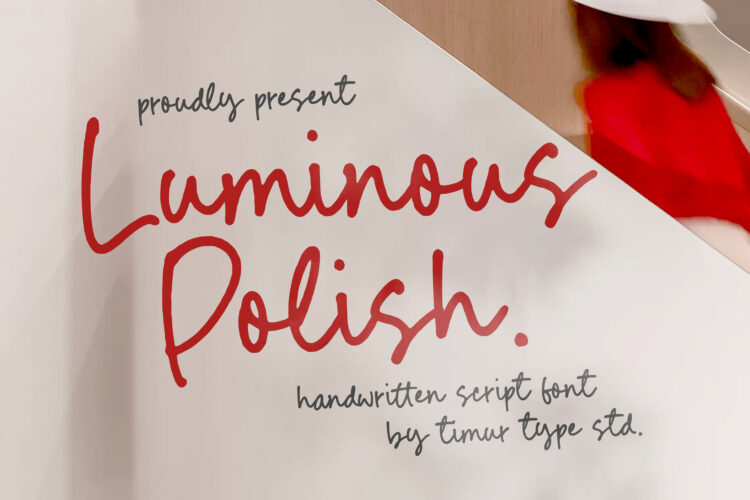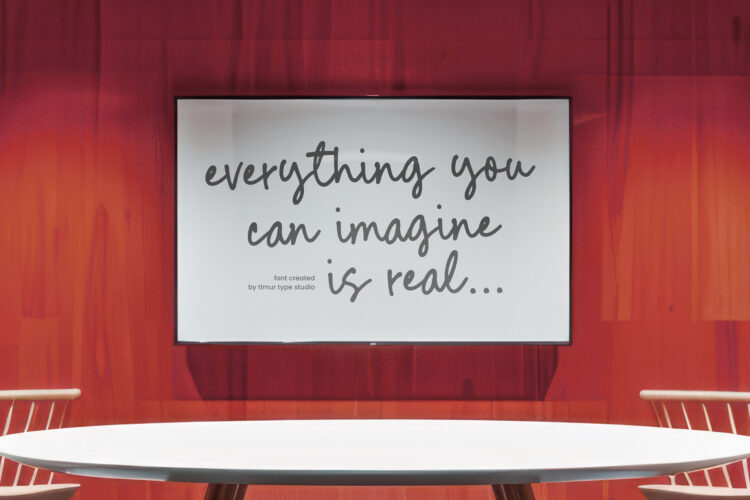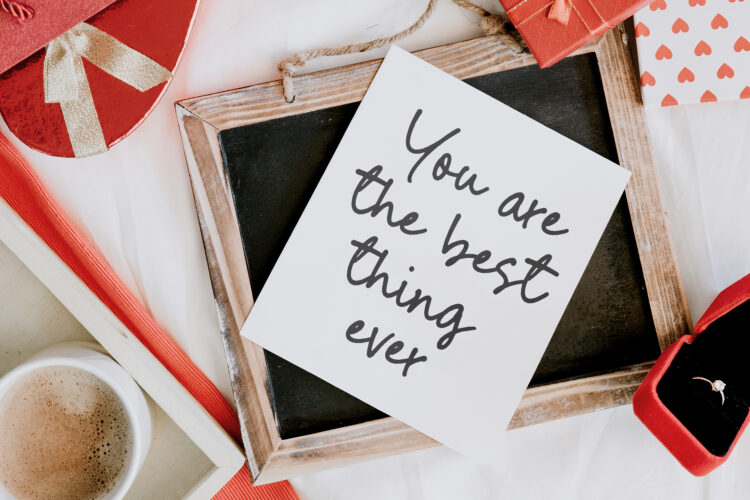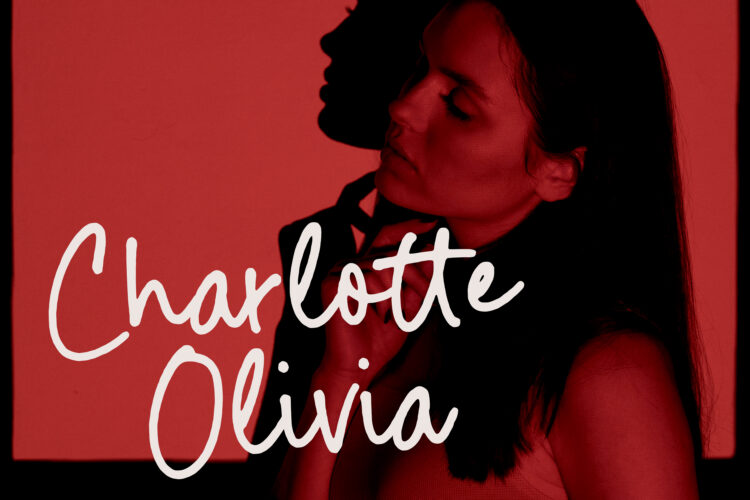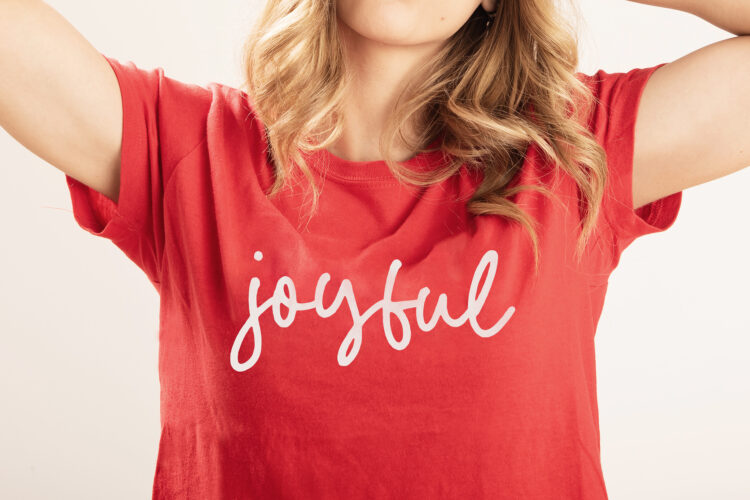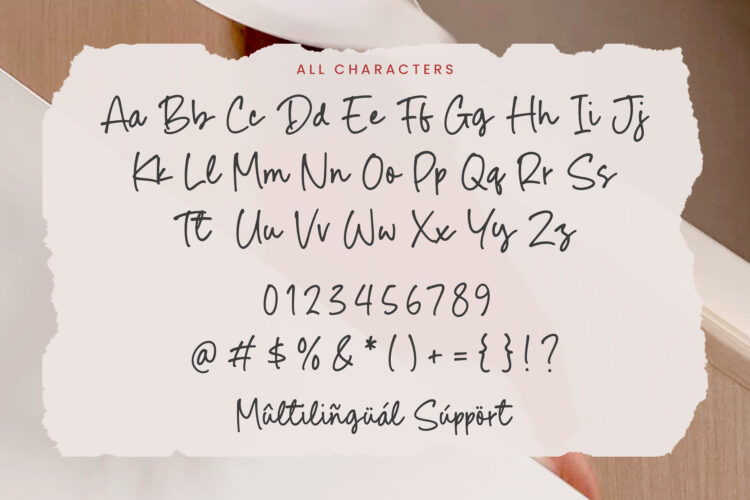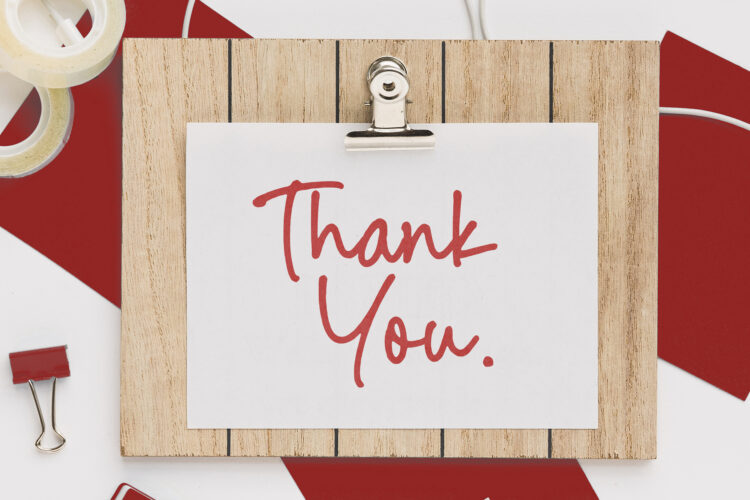
Luminous Polish is a Handwritten Script Font
Luminous Polish is a modern, casual handwritten-script typeface with a natural, fluid feel. Designed by Timurtype Studio, it combines smooth curves, a friendly rhythm, and subtle stylistic alternates to create a charming yet professional look.
Luminous Polish Font also supports multilingualism
Luminous Polish – Handwritten Script Font